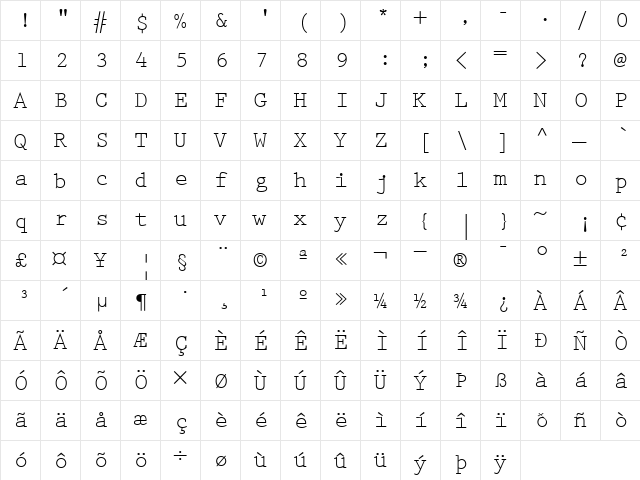
PrestigeElite Roman
Design Context for PrestigeElite Typeface
PrestigeElite is a composed and adaptable typeface that performs quietly and consistently across a wide range of design contexts.